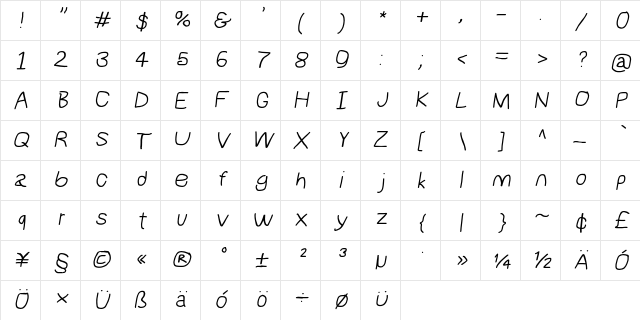
NumbBunny WideIta Free Font
NumbBunny WideIta
Style: WideIta
Foundry: Cannot Into Space Fonts
Designer: Robert Jablonski
Design Context for NumbBunny
NumbBunny is a composed and adaptable typeface that performs quietly and consistently across a wide range of design contexts.